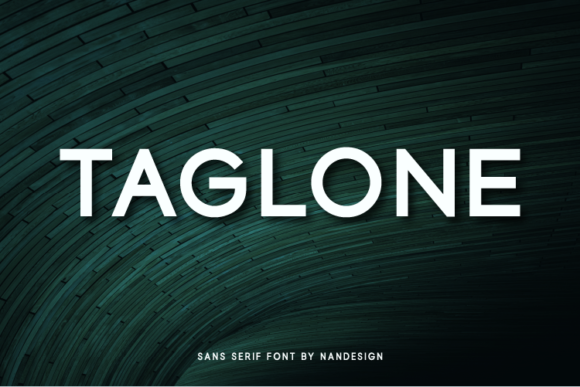
**Introducing Taglone: The Bold and Simple Sans Serif Font That Will Ignite Your Creativity**
In a world where visual communication reigns supreme, having the right font can make all the difference. Introducing Taglone, a font crafted with simplicity and impact, designed to amplify your creative vision and captivate your audience.
Taglone is not just a font; it's a statement of style and personality. Its bold and simple lines exude a modern elegance that effortlessly elevates any design, whether it's a striking logo, an engaging poster, or a captivating website. With Taglone, your words will resonate with impact, leaving a lasting impression on your readers.
**Unleash Your Artistic Flair with Taglone's Versatile Charm**
The beauty of Taglone lies in its versatility. Its clean and contemporary design seamlessly blends with a wide range of creative projects, making it an essential tool for the modern creator.
Whether you're a graphic designer looking to create eye-catching visuals, a marketer yearning for impactful marketing materials, or a content creator seeking a font that commands attention, Taglone has you covered. Its crisp lines and clear letterforms ensure that your message will be conveyed with clarity and impact, leaving a lasting impression on your audience.
**Elevate Your Designs with Taglone's Emotional Appeal**
Beyond its aesthetic charm, Taglone possesses an emotional power that resonates with audiences. Its bold and confident strokes exude a sense of strength and authority, while its simple and legible design creates a sense of trust and approachability.
When you use Taglone, you tap into the emotional connection between your audience and your message. Your words become more powerful, your designs more memorable, and your creative vision more impactful.
**Discover the Limitless Possibilities of Taglone**
With Taglone as your creative companion, the possibilities are endless. Unleash your imagination and explore new horizons of design, knowing that your font will always be up to the challenge.
From dynamic headlines that grab attention to captivating social media posts that inspire engagement, Taglone is the perfect choice for those who dare to make a statement and leave a lasting impression.